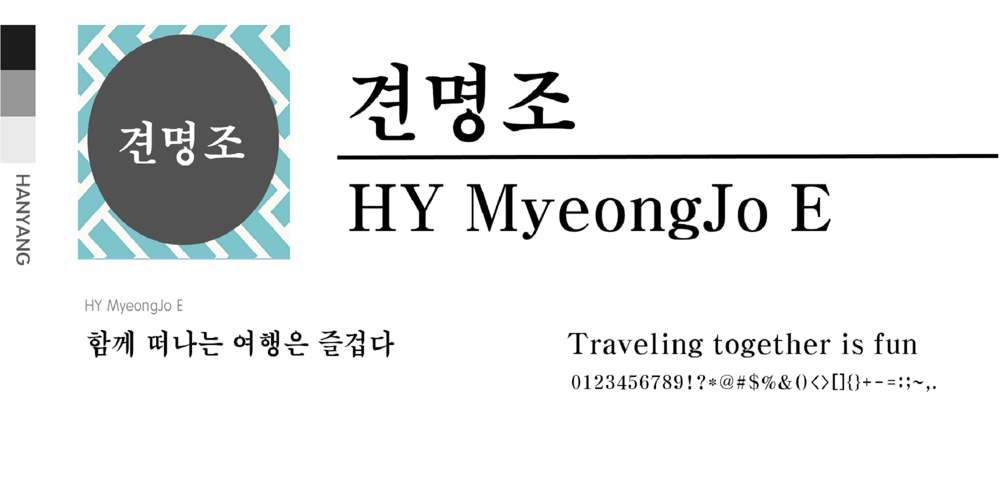
HY MyeongJo E Font Family was designed by font hy and published by HY Font. HY MyeongJo E contains 1 styles and family package options. From a typography perspective, the HY MyeongJo E font has advantages such as balanced glyphs, excellent readability, and a variety of styles.It can be used in various fields such as editorial design, branding, and web design.